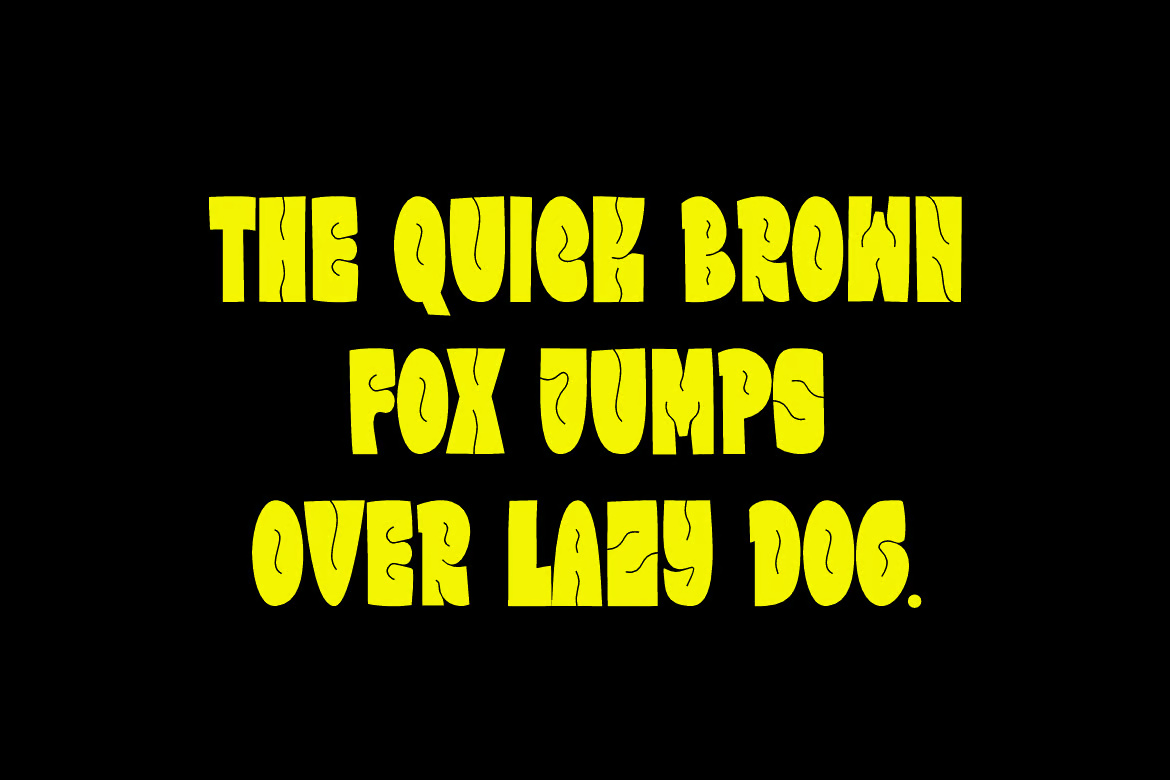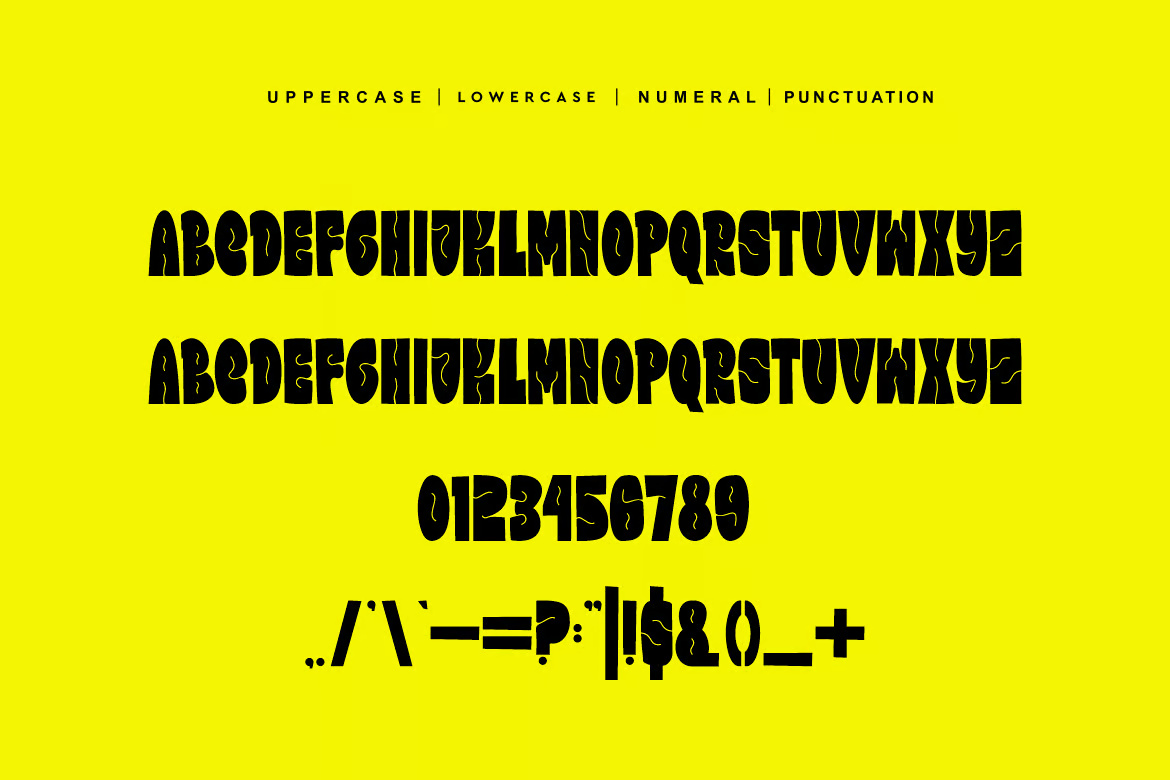
Ertopan – Groovy Font
Ertopan – Groovy Font is a unique and stylish typeface that brings a fun, retro vibe to your designs. Perfect for labeling, movie screens, posters, movie titles, gigs, album covers, logos, branding, and much more, this font adds a bold and dynamic touch to any creative project. With its smooth curves and playful character, Ertopan is designed to stand out and make an impact.
Ertopan – Groovy Sans-Serif Font
Ertopan - Groovy Font